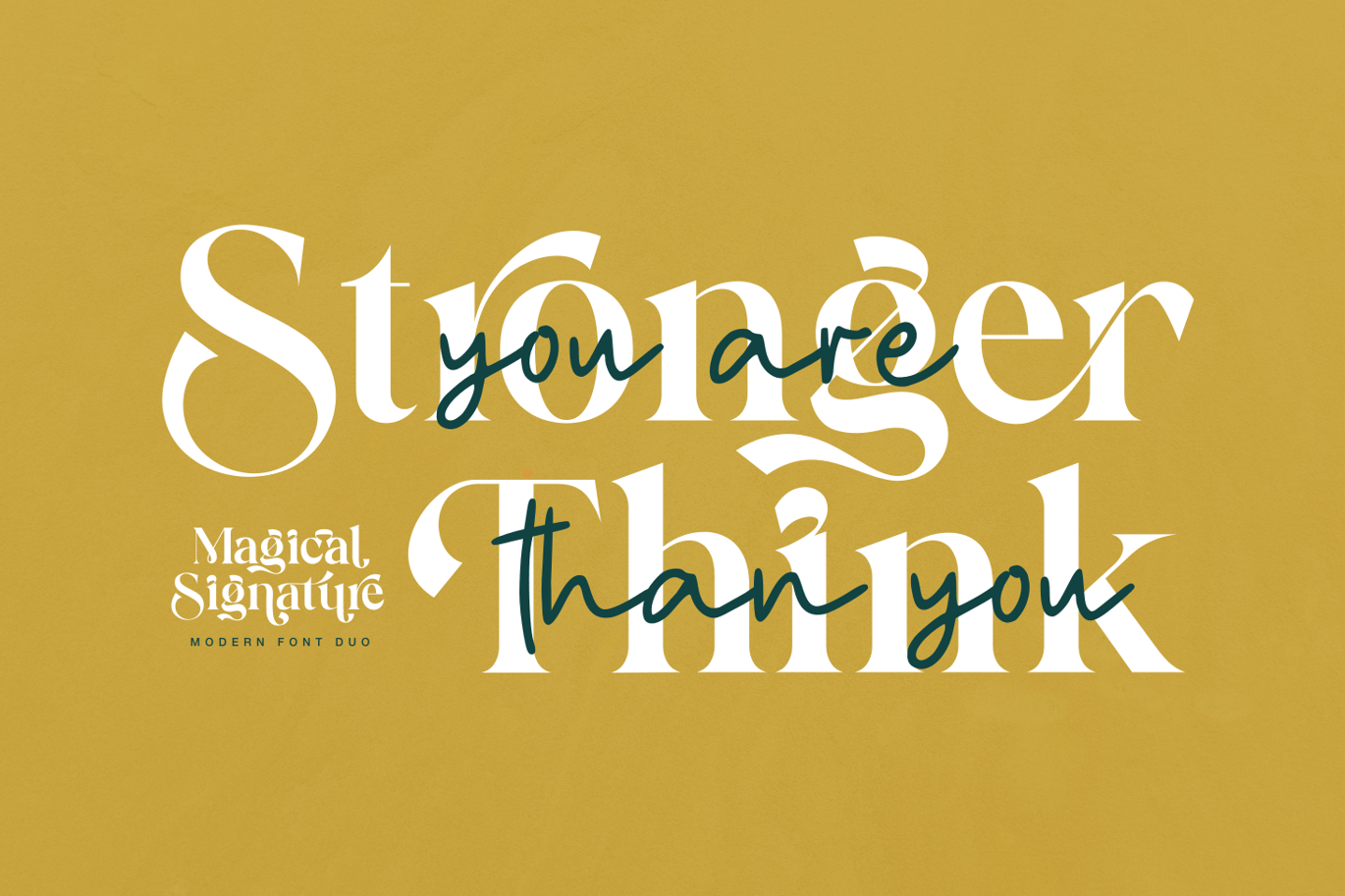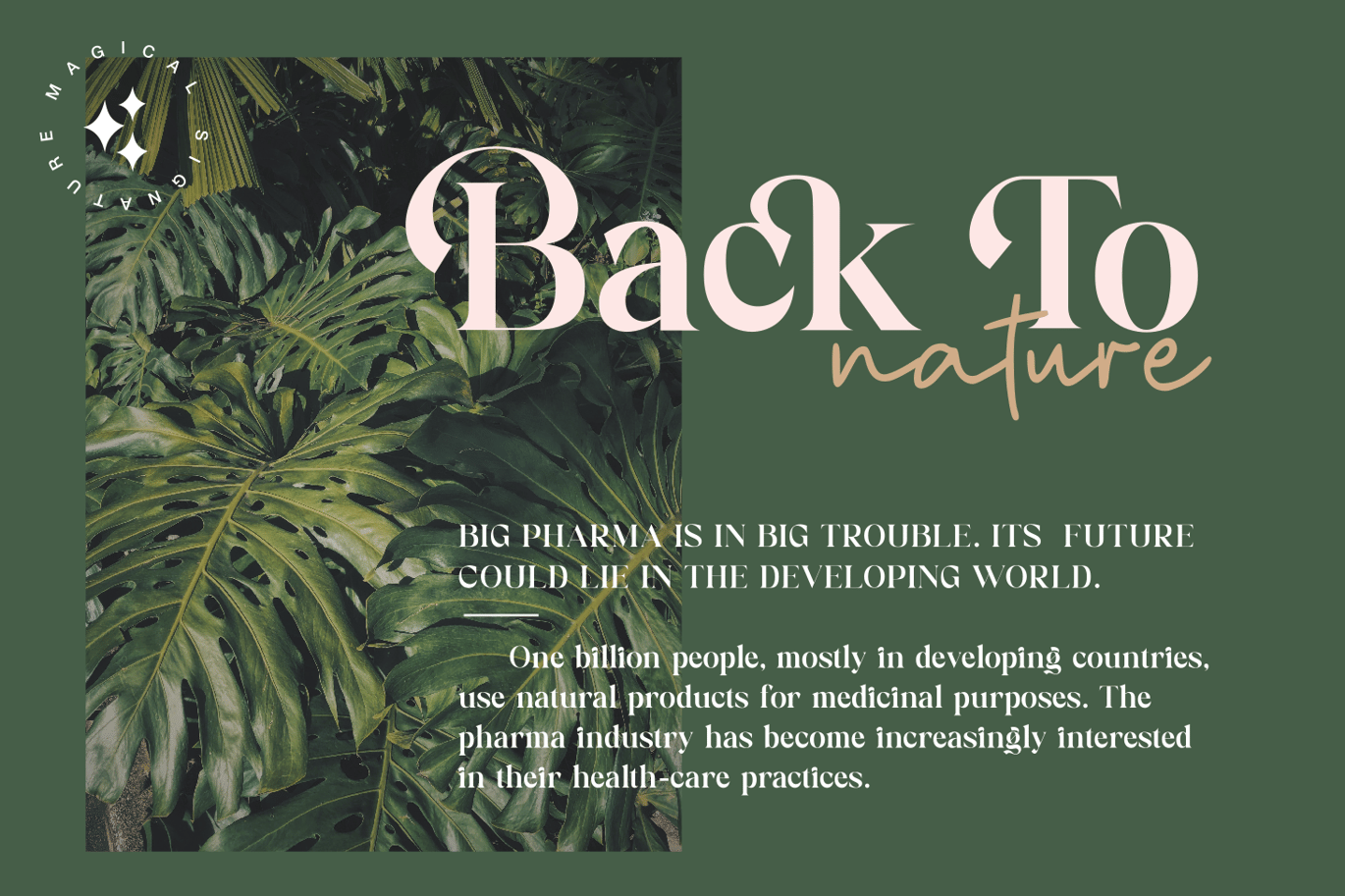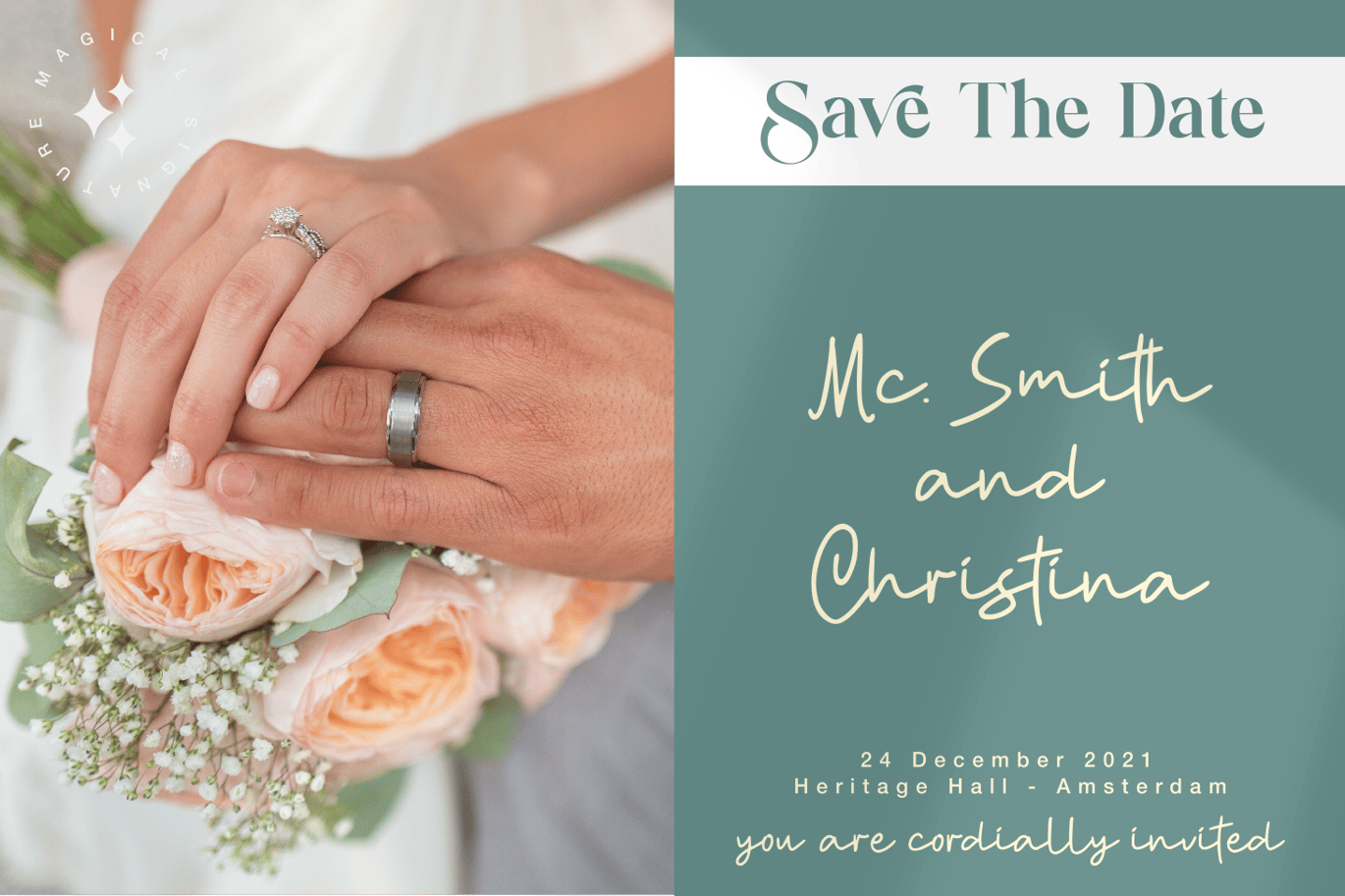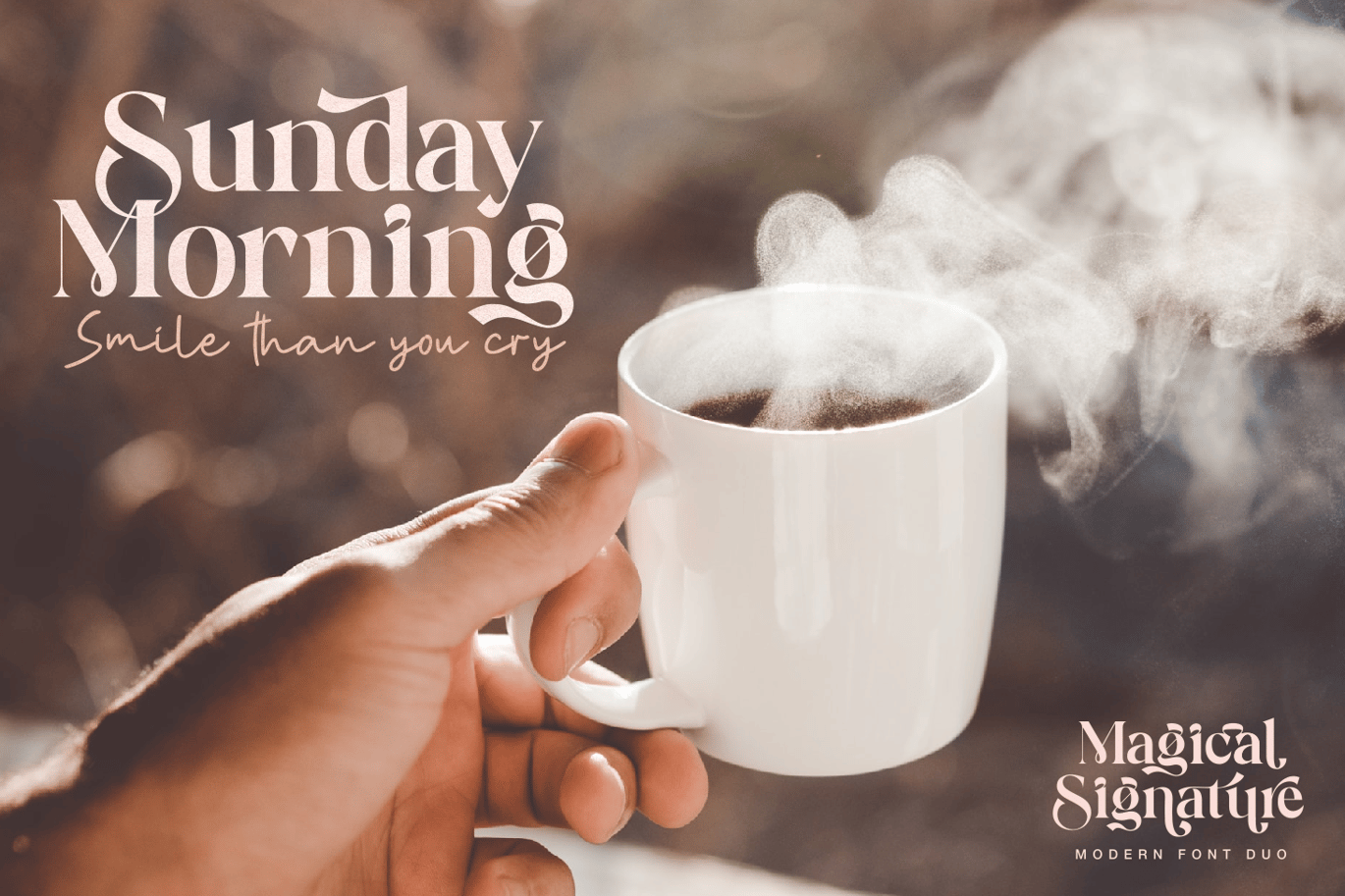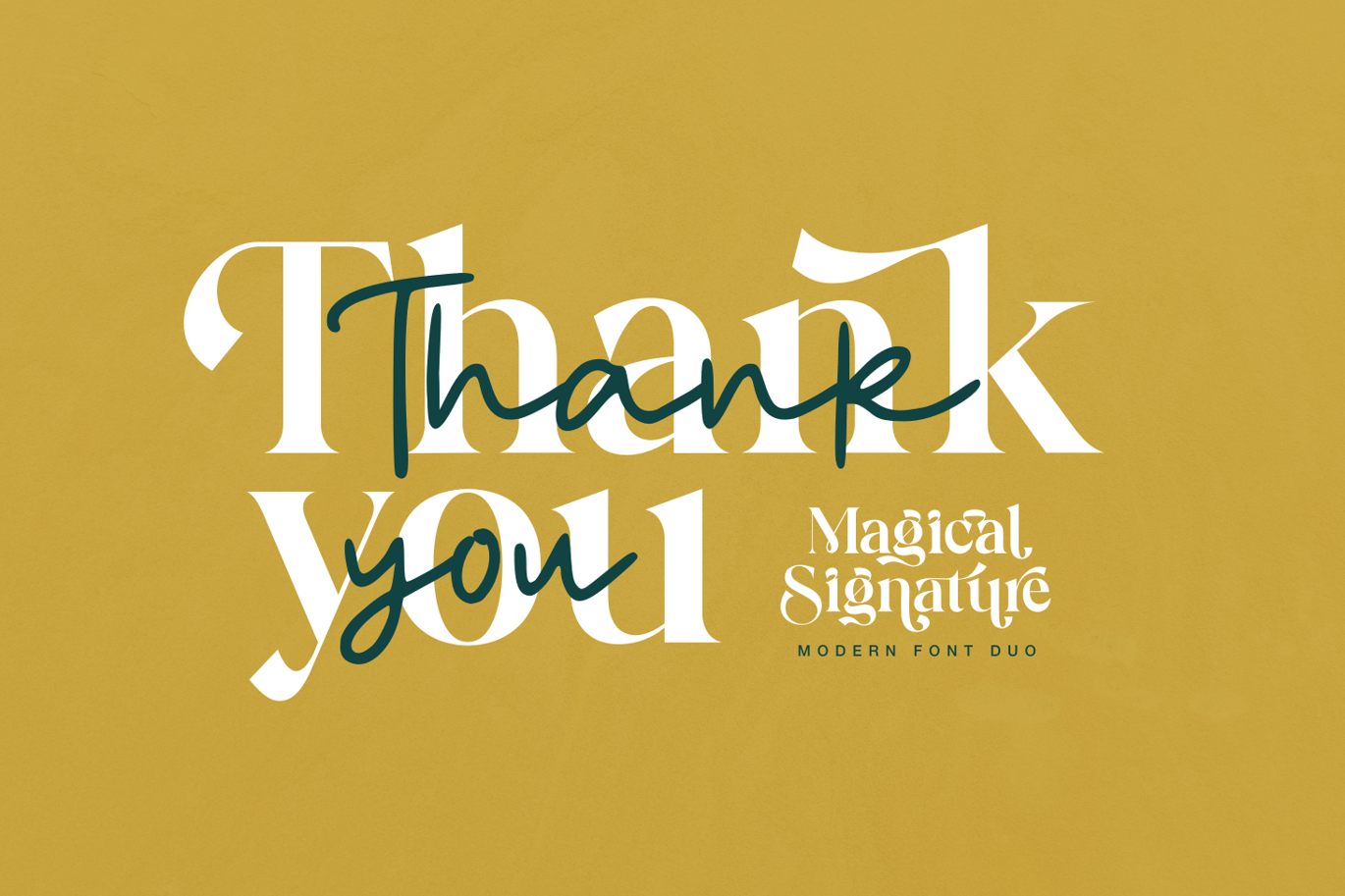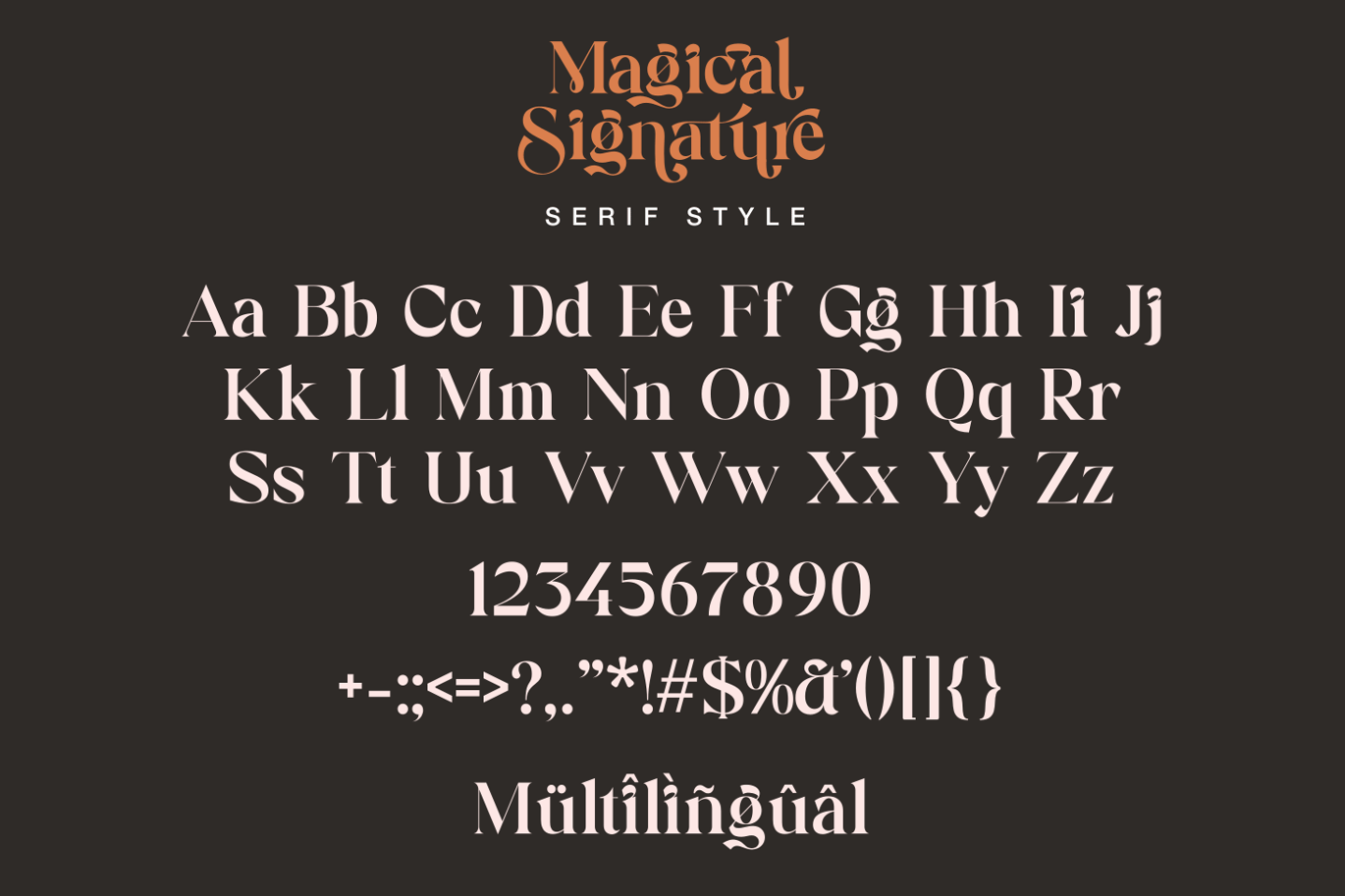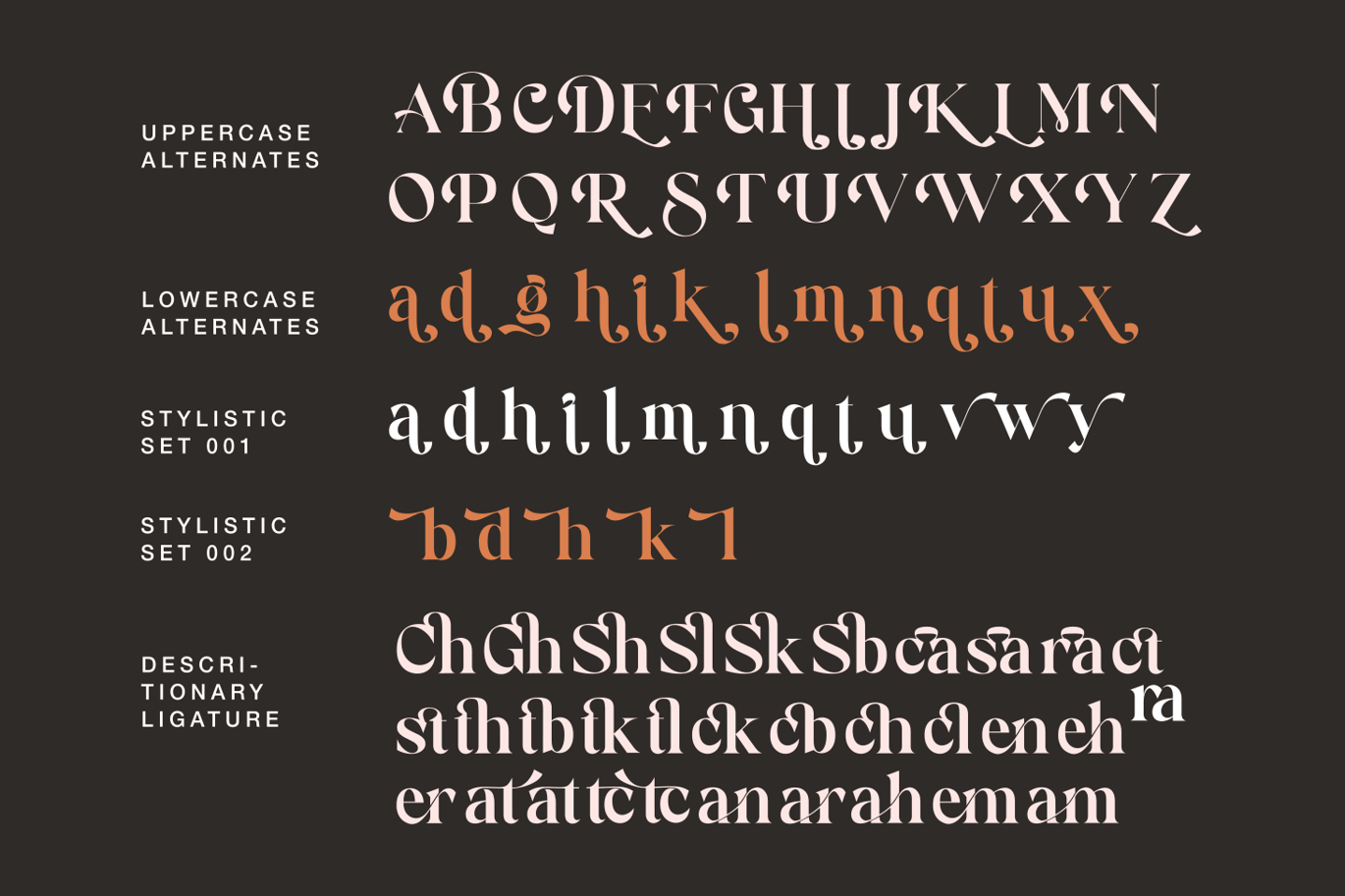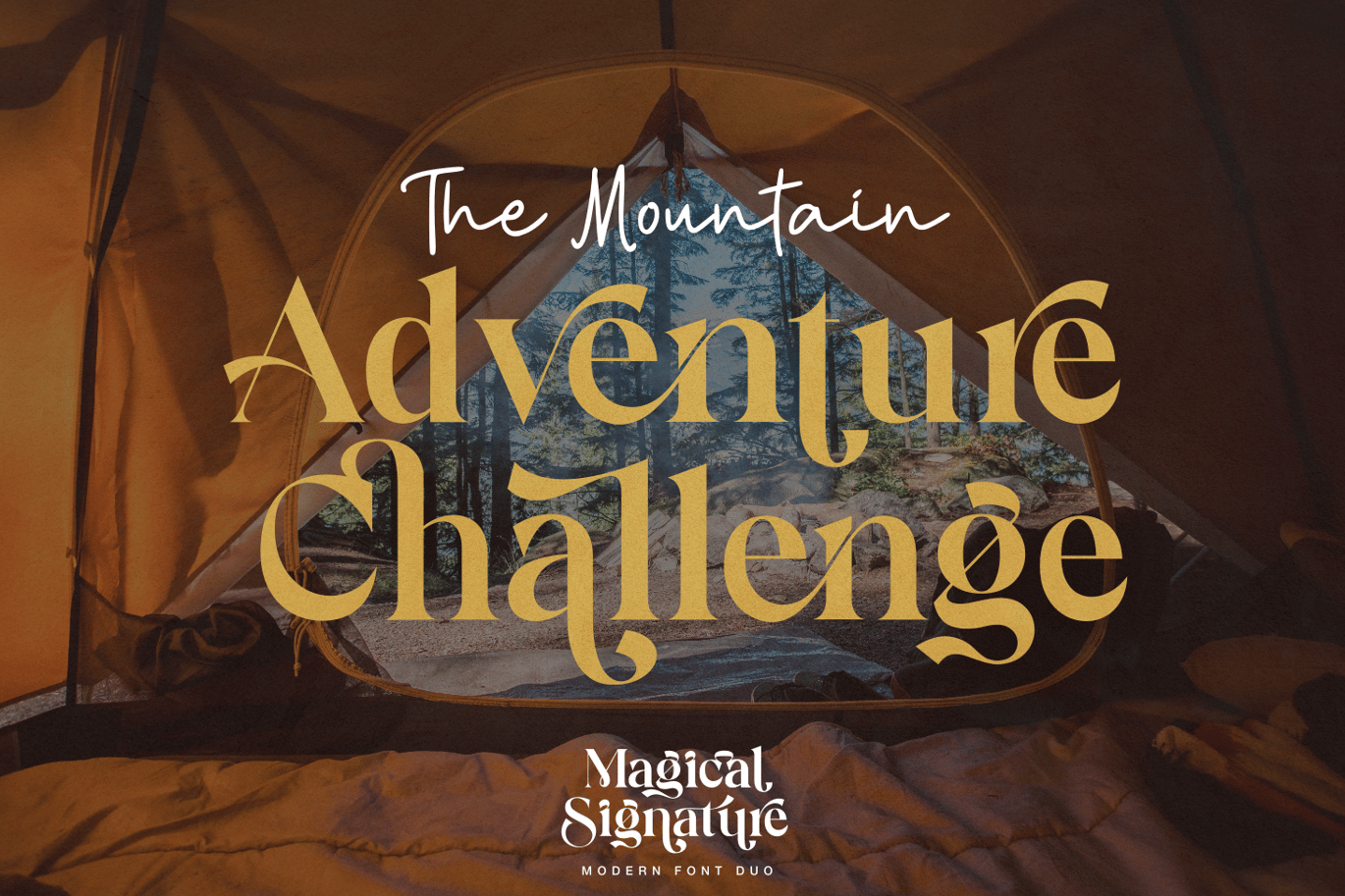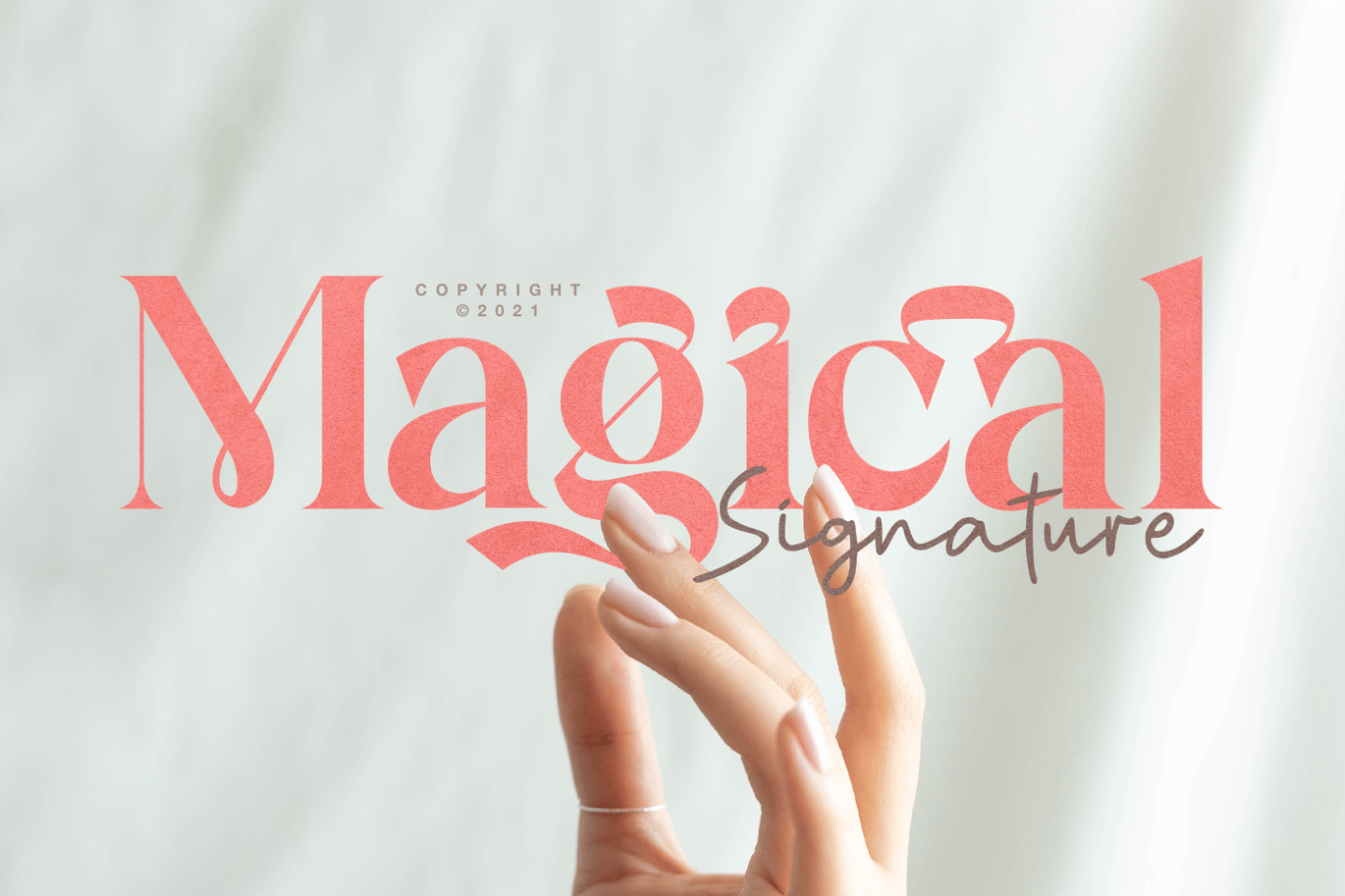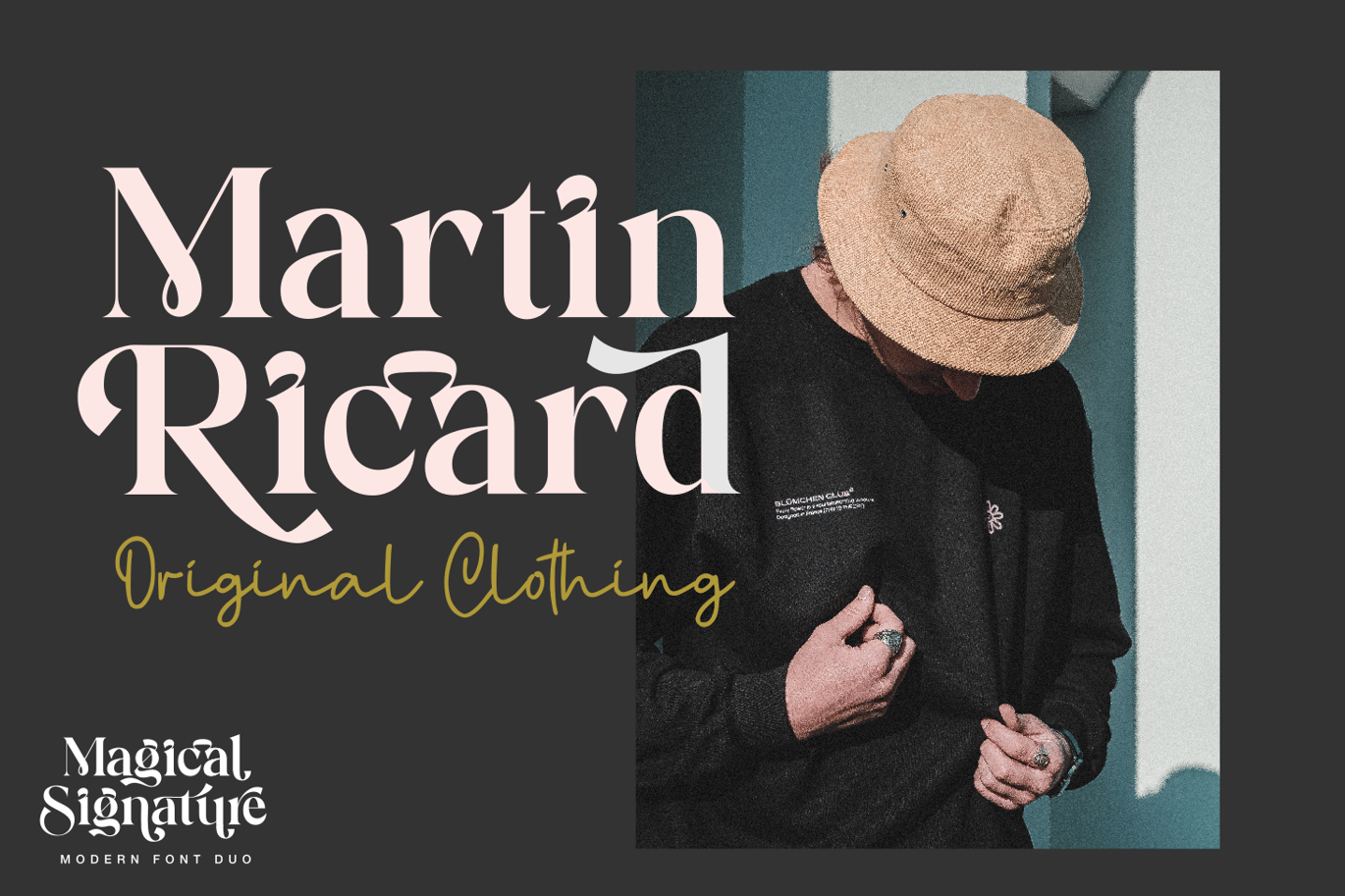
Magical Signature Font Duo
Introducing Magical Signature
Magical Signature are Font duo that includes a serif typeface and signature script. Display Serif inspired by famous logo, This typeface has been made carefully to make sure its premium quality and luxury feel.